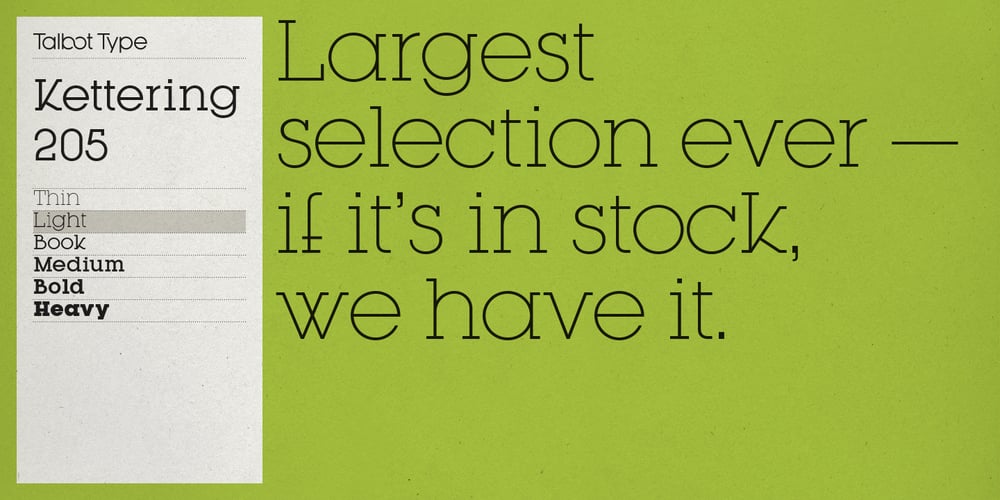
Kettering 205 Font Family was designed by Adrian Talbot and published by Talbot Type. Kettering 205 contains 12 styles and family package options. Kettering 205 is a geometric slab-serif with Art Deco influences, such as lowered crossbars on many characters, and a crossed W. It includes old style non-aligning (lower case) numbers, both proportional and tabular as well as accented characters for Central European languages. It’s a highly individual looking font, but retains good legibility coupled with striking looks as a display font. The Kettering 205 family comprises of six weights and is closely related to Kettering 105, its less Deco flavoured cousin.